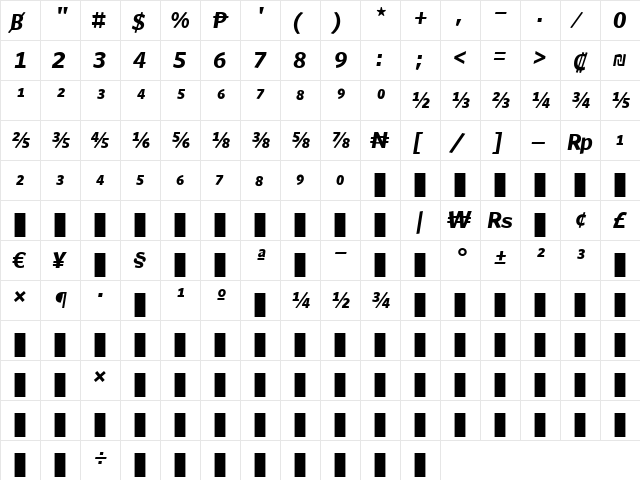
WhitneyNumeric Bold Italic
Design Context for WhitneyNumeric Typeface
WhitneyNumeric offers clean, dependable letterforms without strong stylistic allegiance, making it a practical choice for designers who need flexibility. The slanted form adds forward momentum and visual energy. The heavy weight commands attention and anchors typographic hierarchies.
Pro Tip: Use WhitneyNumeric for emphasis, pull quotes, and subheadings where its slanted energy can add rhythm to the layout.